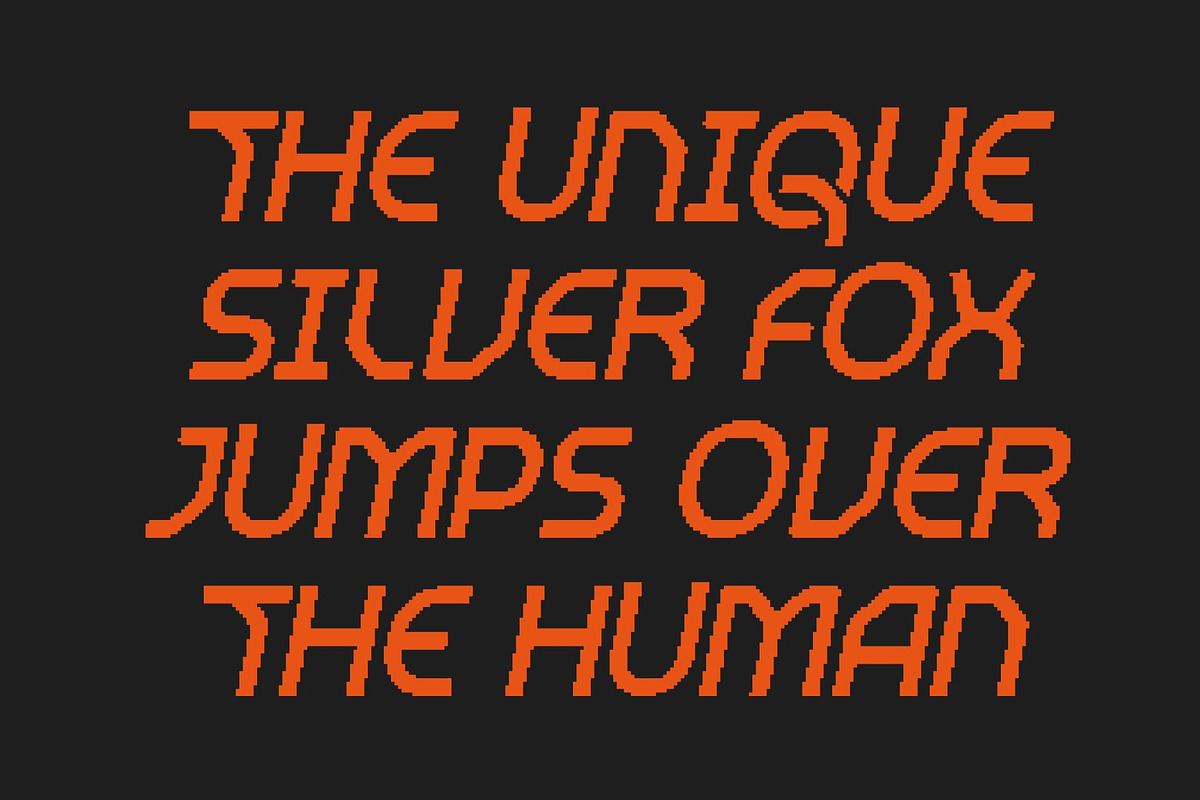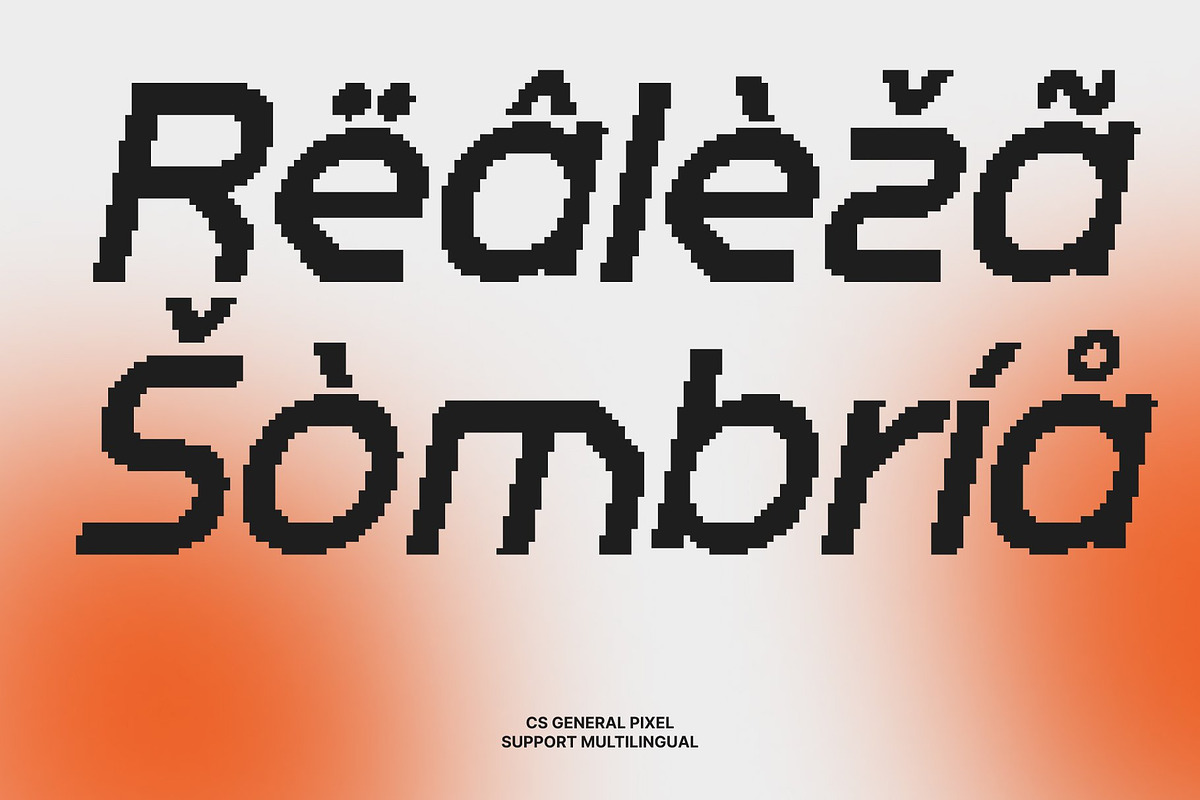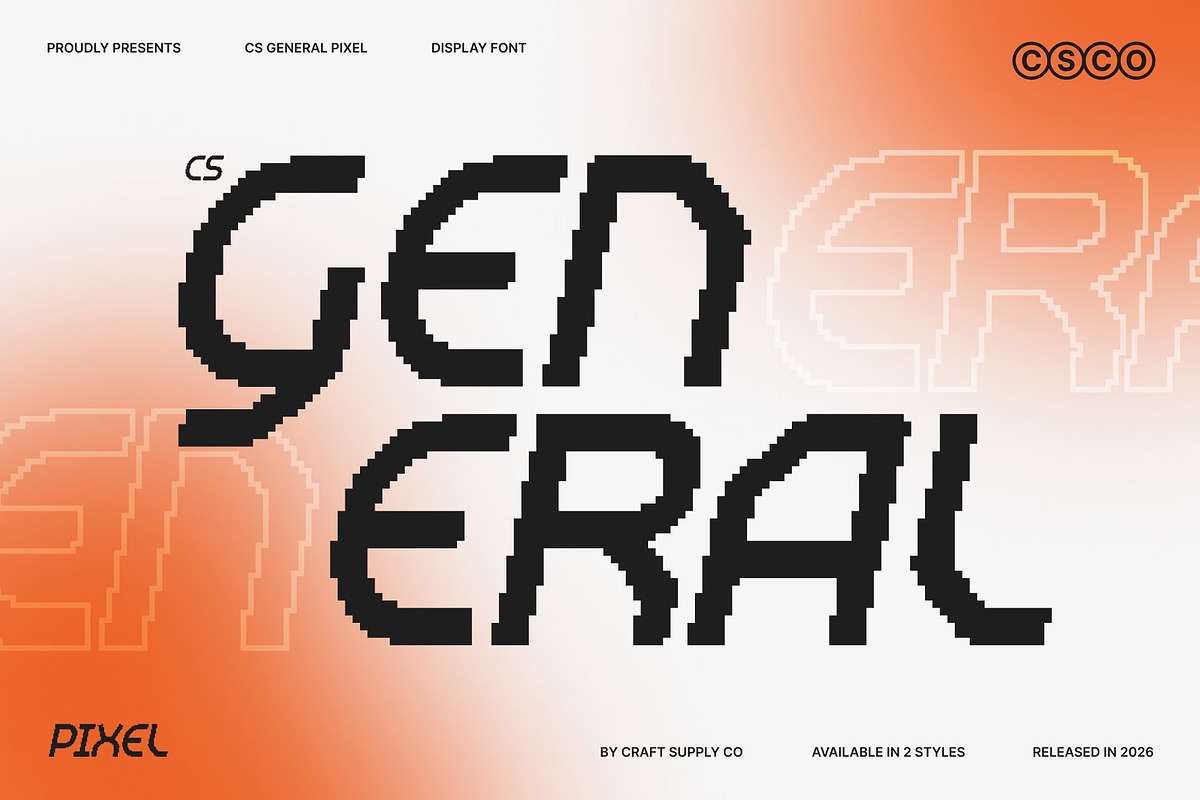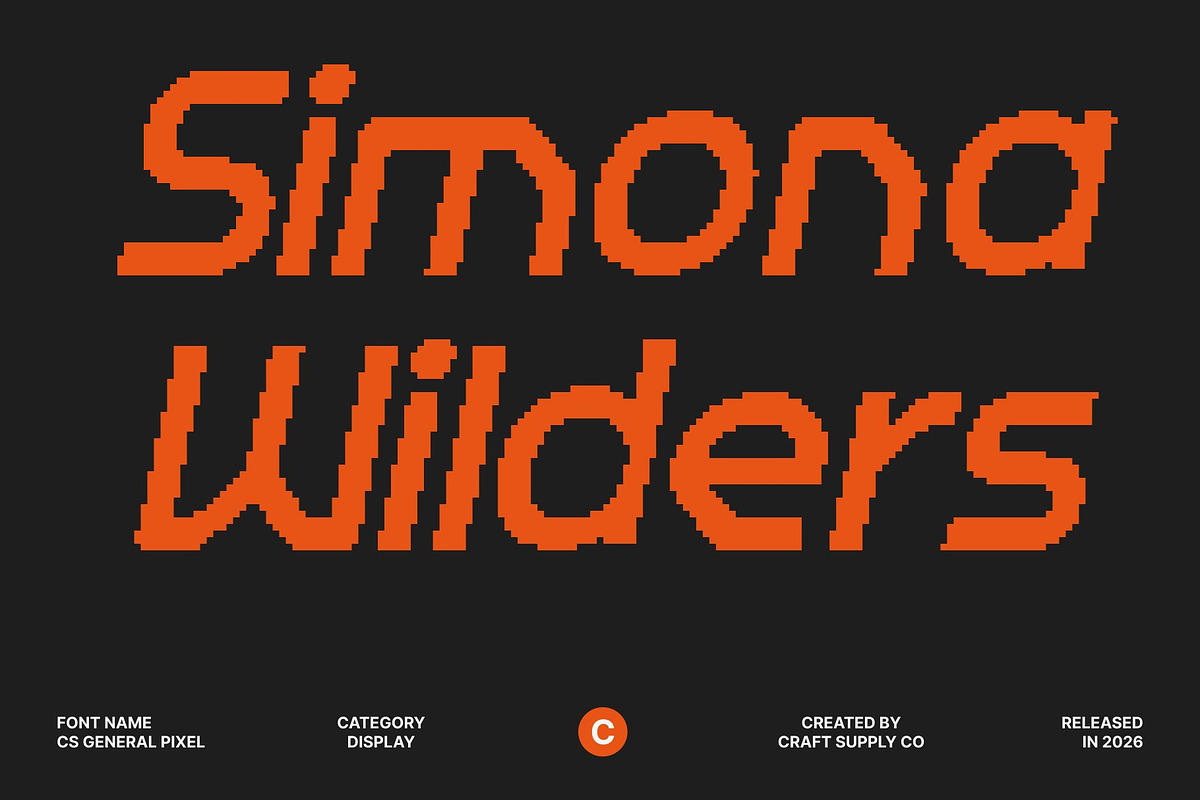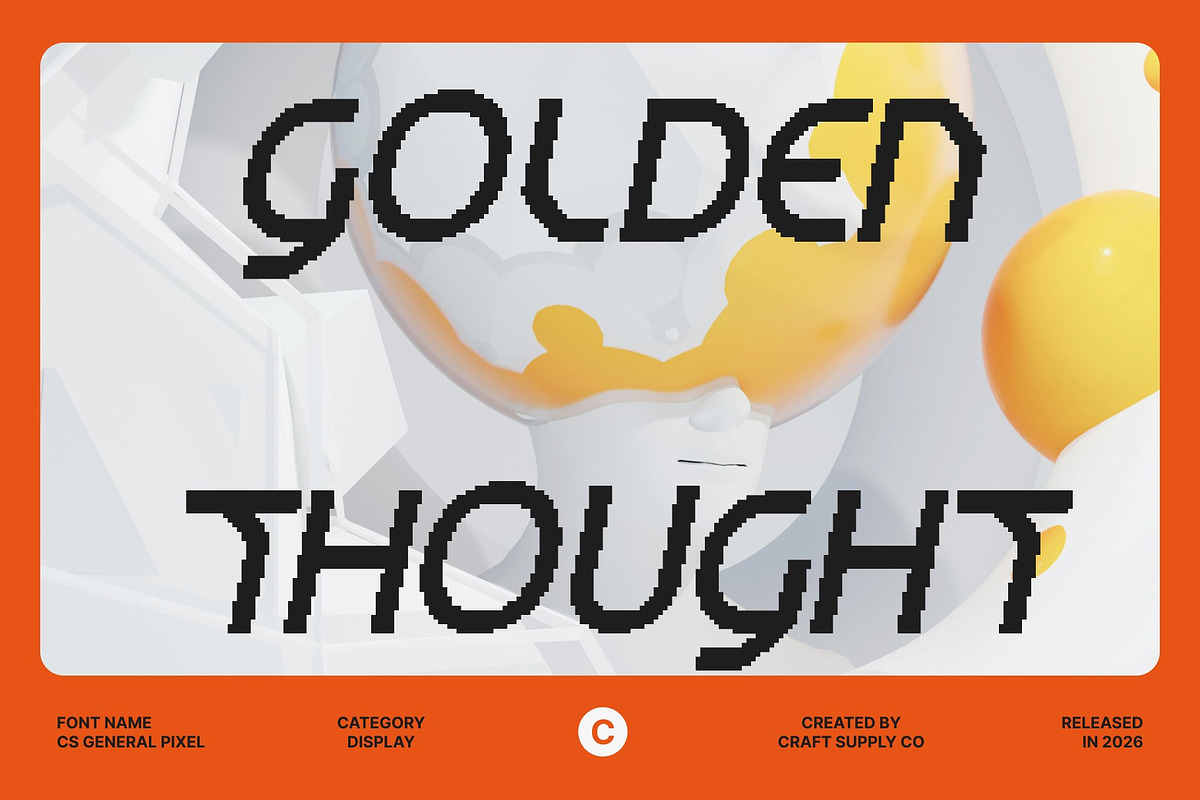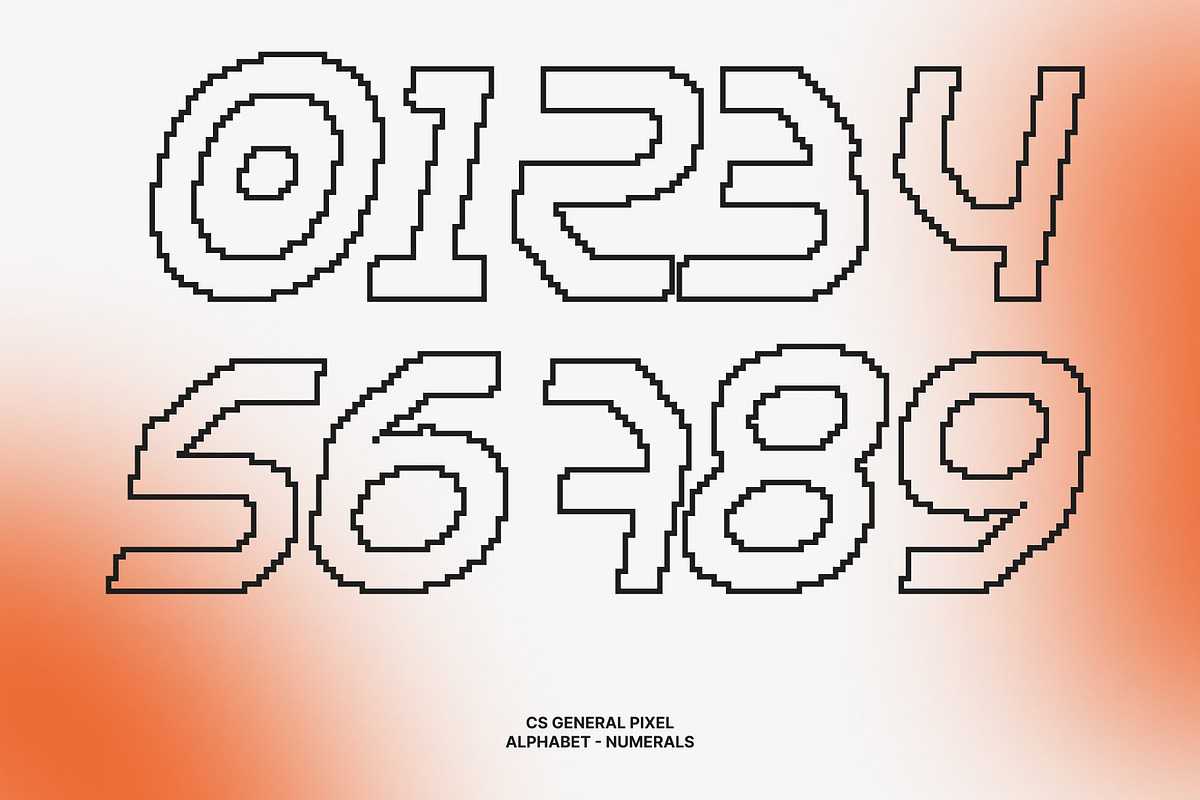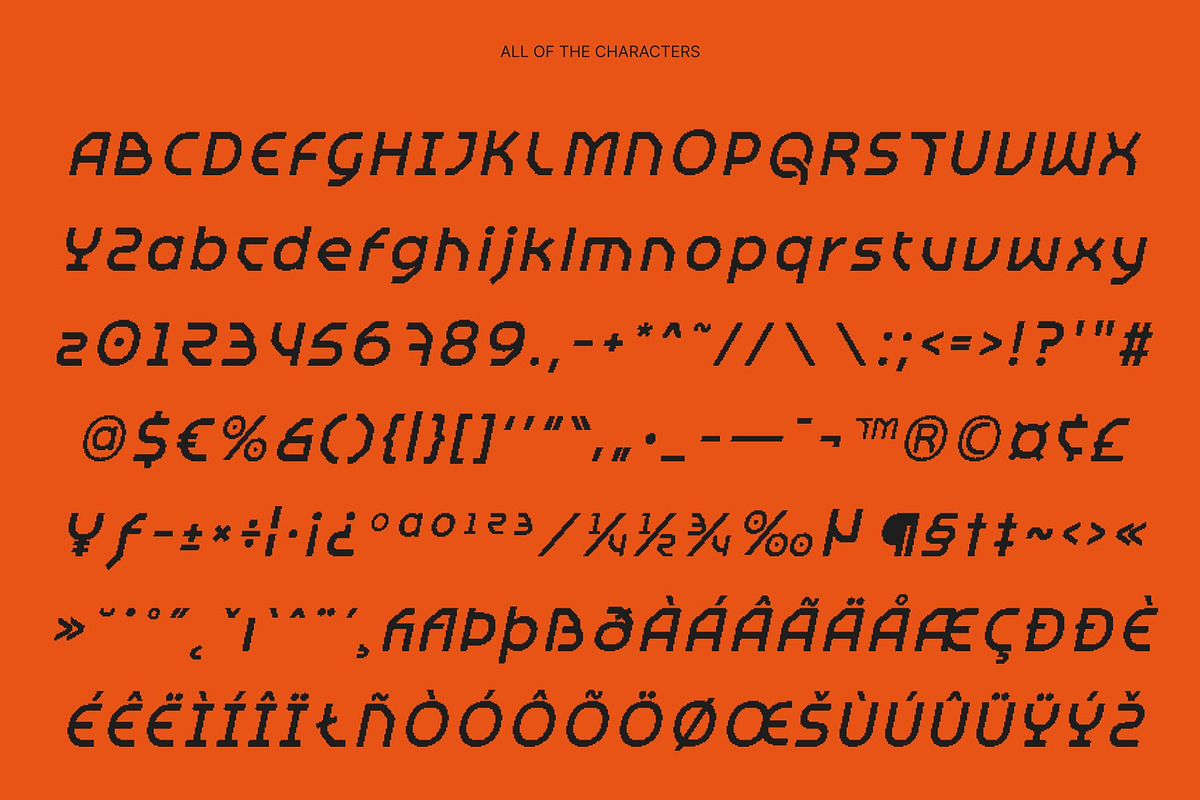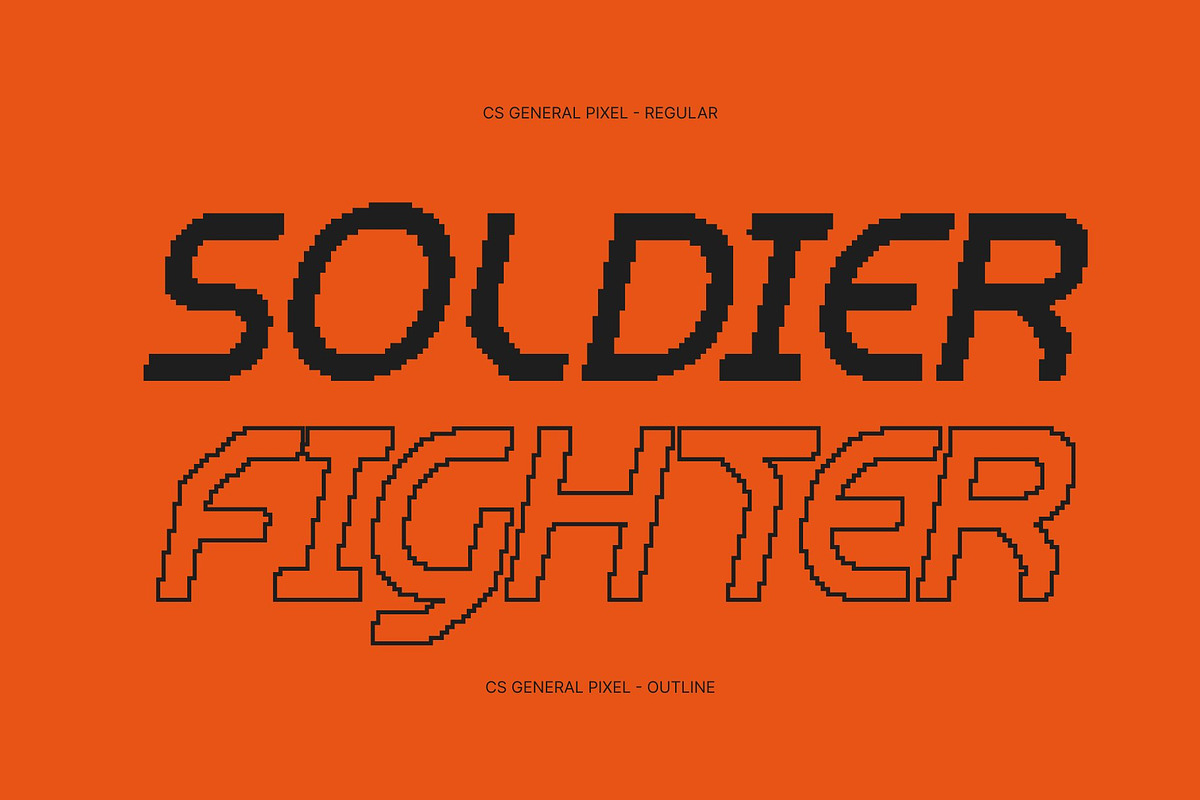
CS General Pixel
CS General Pixel – Futuristic Techno Power in Pixel Precision
High-Tech Display Font with Futuristic Edge This is a futuristic techno display font built to express speed, precision, and digital dominance. Its sharp, angular construction combined with a pixel-based structure creates a bold, aggressive visual identity. The font feels modern, mechanical, and powerful perfect for designs that demand a strong futuristic presence.
Sharp Geometry with Pixel Accuracy Every letterform is crafted from clean geometric shapes and crisp pixel edges, resulting in a precise and controlled typographic rhythm. The sharp angles enhance intensity, while the pixel structure reinforces a digital, machine-driven aesthetic. This balance delivers clarity, impact, and a striking visual punch in display use.
Tech-Driven Aesthetic for Digital Worlds This font thrives in technology-focused, cyber, and sci-fi themes. Its futuristic pixel style fits seamlessly into video games, cyber interfaces, sci-fi visuals, retro-tech graphics, and digital environments. The font evokes advanced systems, virtual reality, and high-speed digital evolution.
Perfect for Gaming, Branding, and Futuristic Media From game titles, UI headers, and movie posters to tech branding and promotional graphics, this font performs with confidence. Its bold structure ensures readability while projecting innovation and control. This font is ideal for designers seeking a sharp, futuristic pixel font that feels powerful, modern, and unmistakably digital.